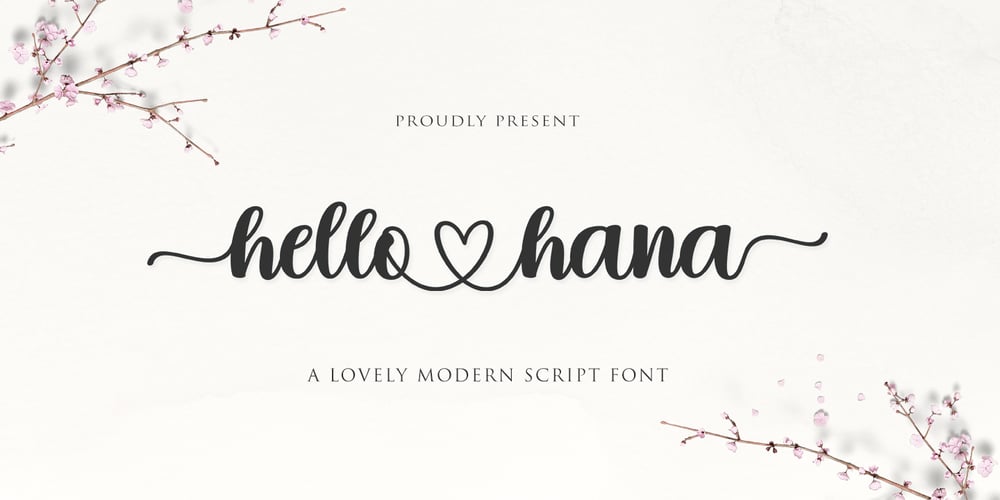
Hello Hana Script Font Family was designed by Zaki Muhammad and published by madjack.font. Hello Hana Script contains 1 styles and family package options. Hello Hana Script is an elegant and flowing handwritten font. It is PUA coded which means you can access all glyphs and swashes with ease! It features varied baselines, smooth lines, gorgeous glyphs and stunning alternatives. It maintains a classy calligraphic influence while feeling contemporary and fresh. Fall in love with this font and take your projects to the highest level!